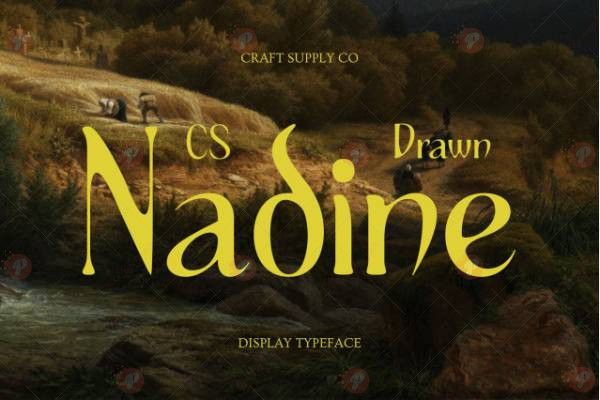
The CS Nadine Drawn Font is a hand-drawn and creative typeface, perfect for posters, social media graphics, logos, branding, greeting cards, and display typography. Its organic and playful style adds charm and personality to every project.
Ideal for digital and print designs, CS Nadine Drawn brings a handcrafted, artistic feel, making your work stand out with uniqueness and flair.
Style: Hand-Drawn / Creative / Display Typeface
Perfect for: Posters, Social Media Graphics, Logos, Branding, Greeting Cards & Display Typography
Add a handcrafted and artistic touch to your designs with the CS Nadine Drawn Font.